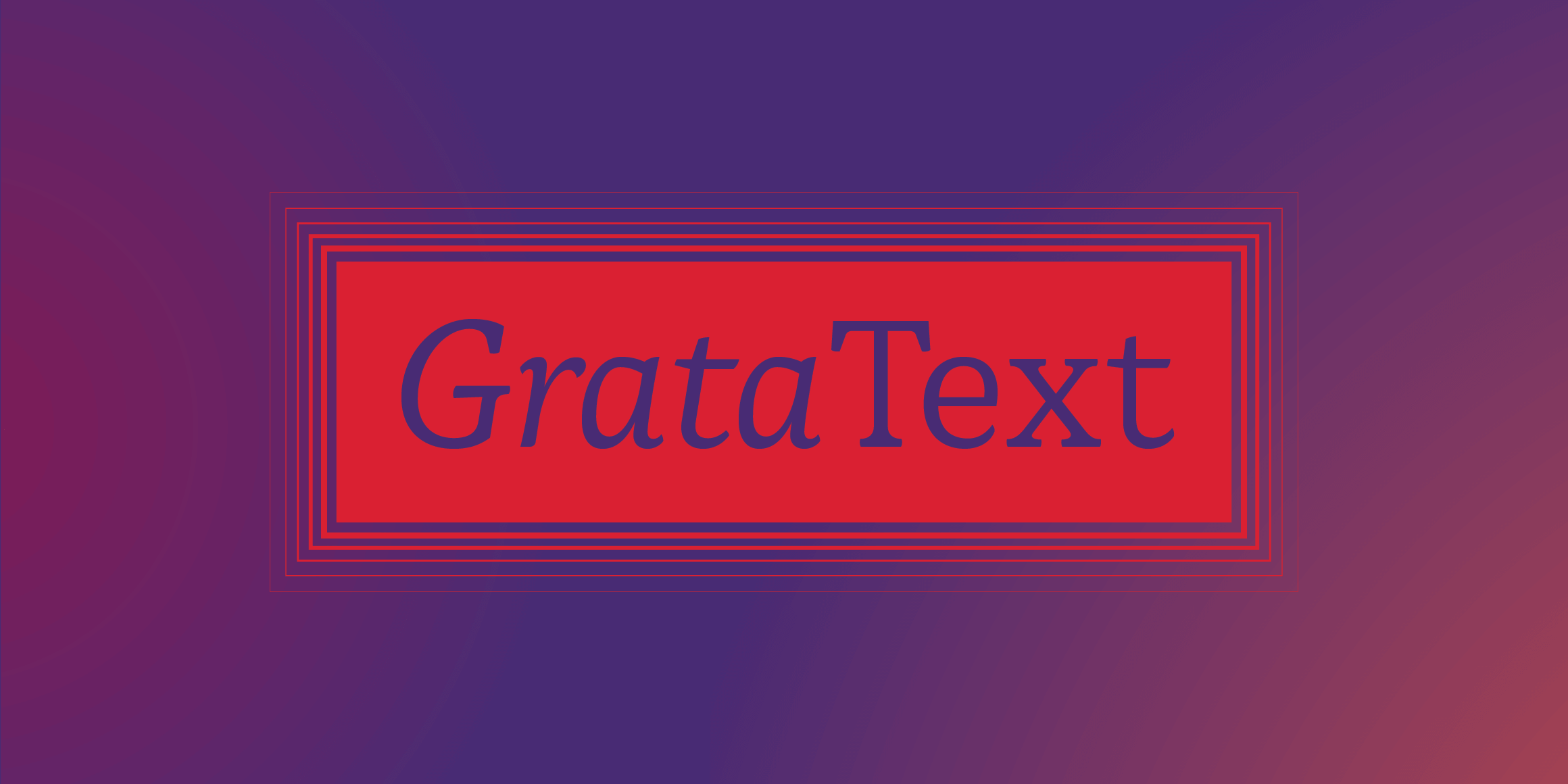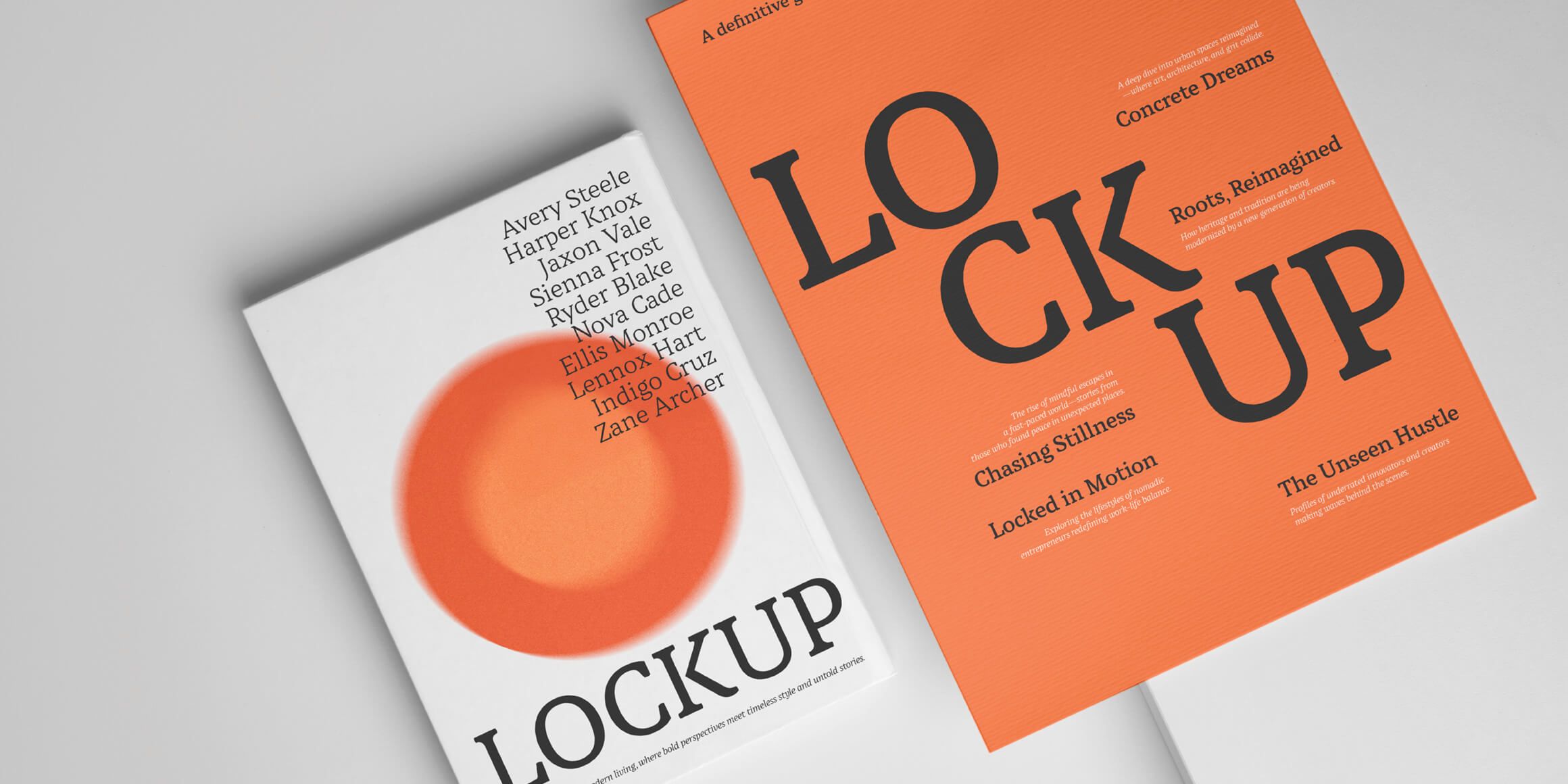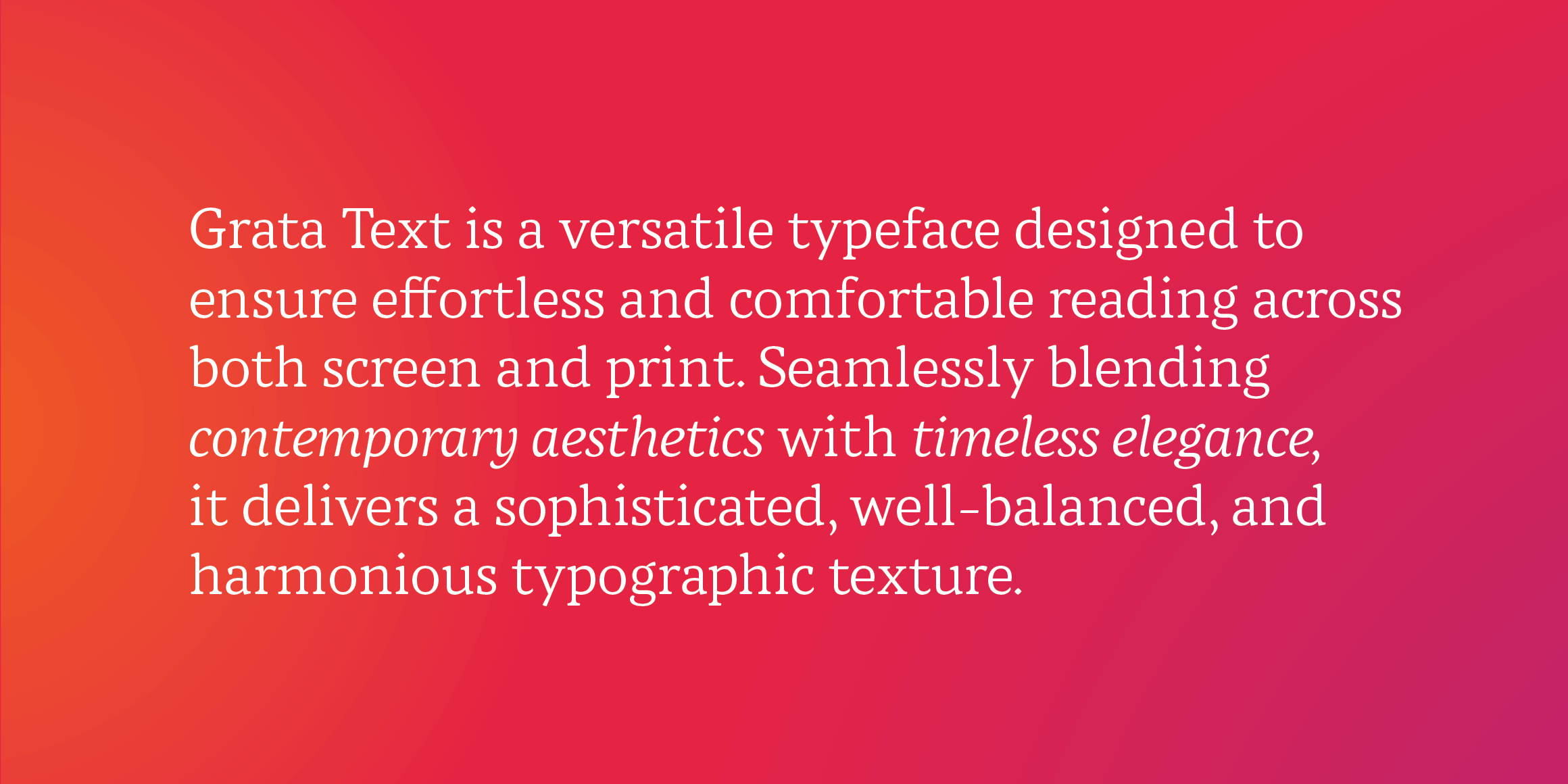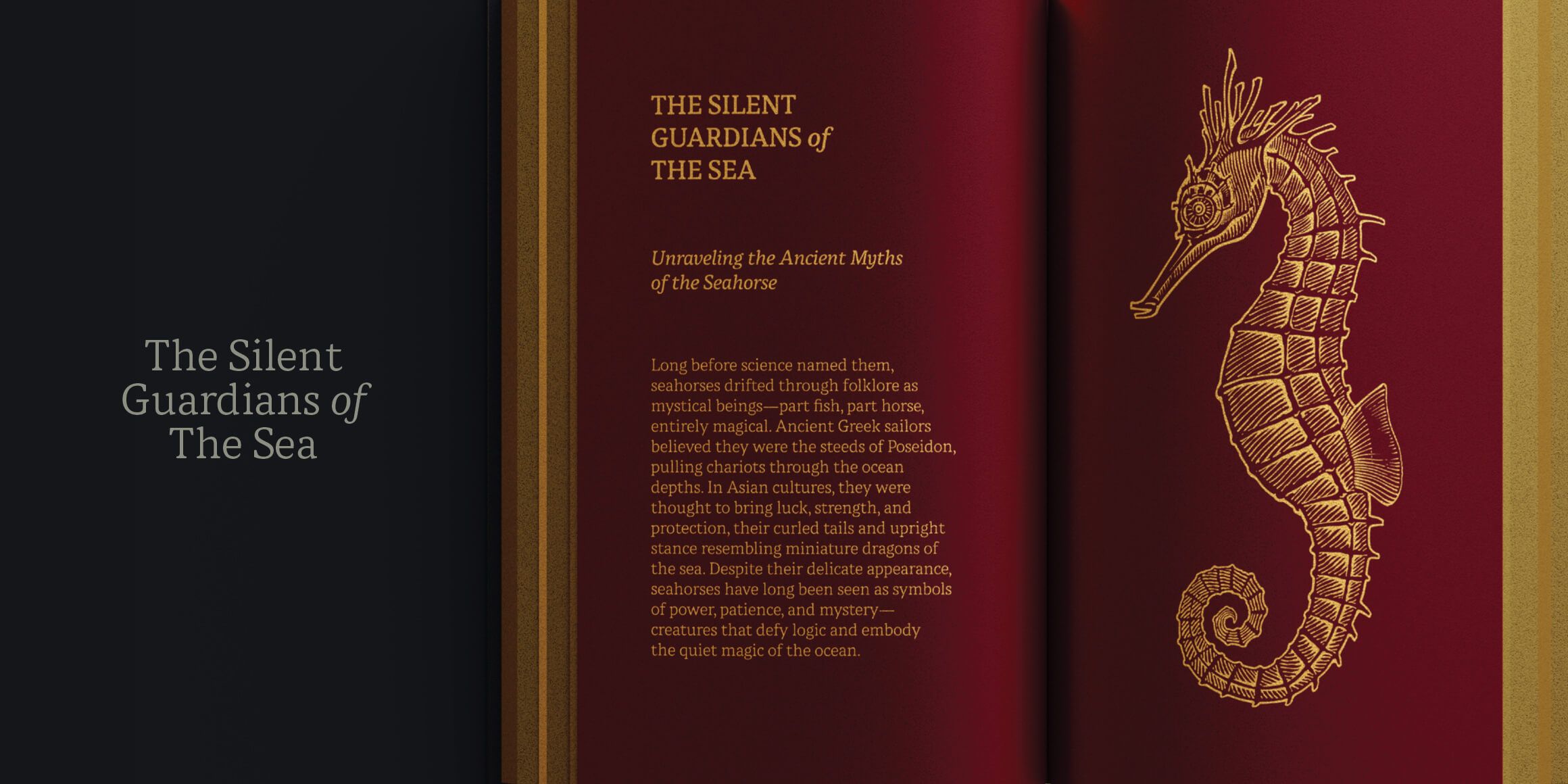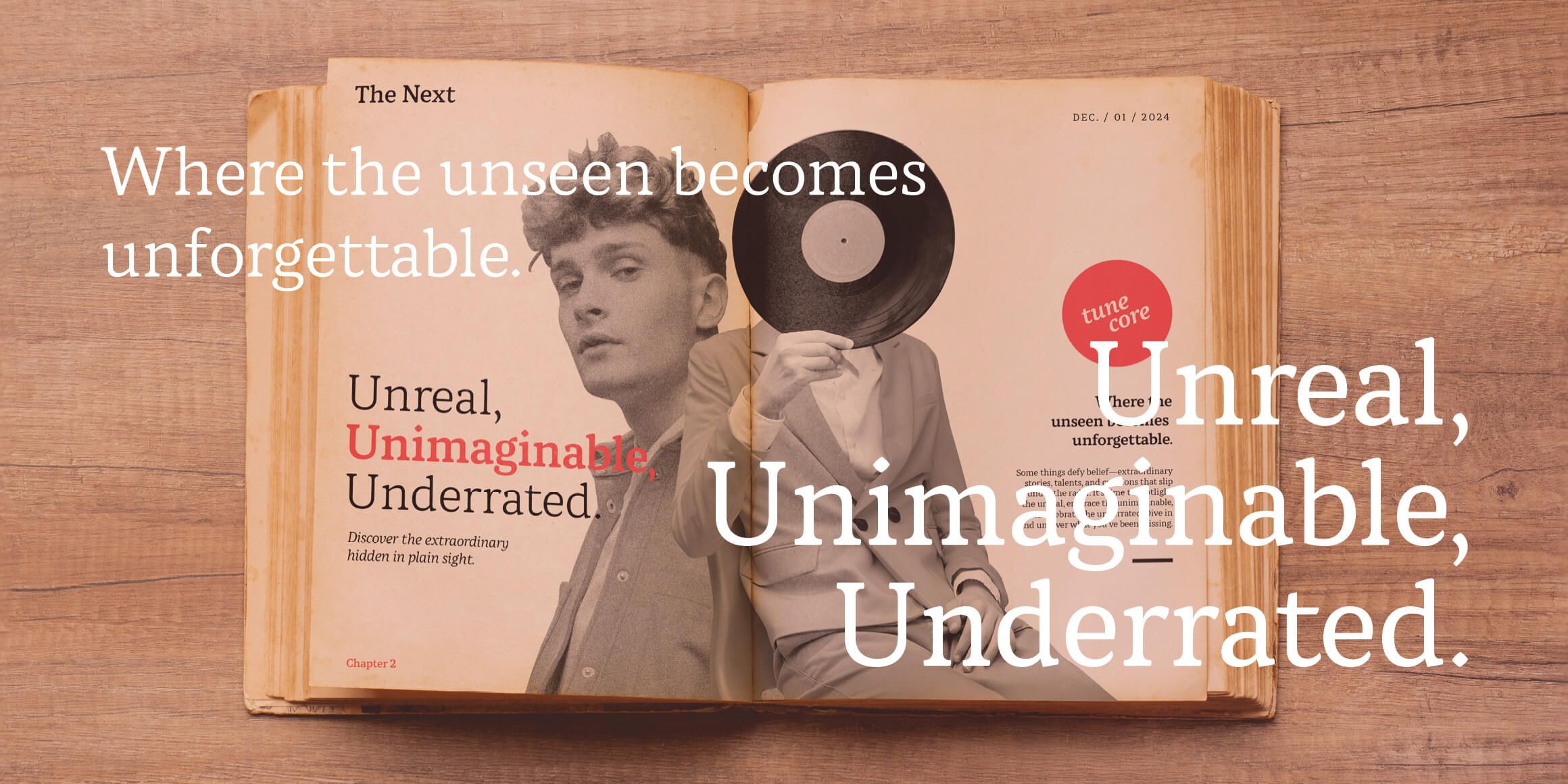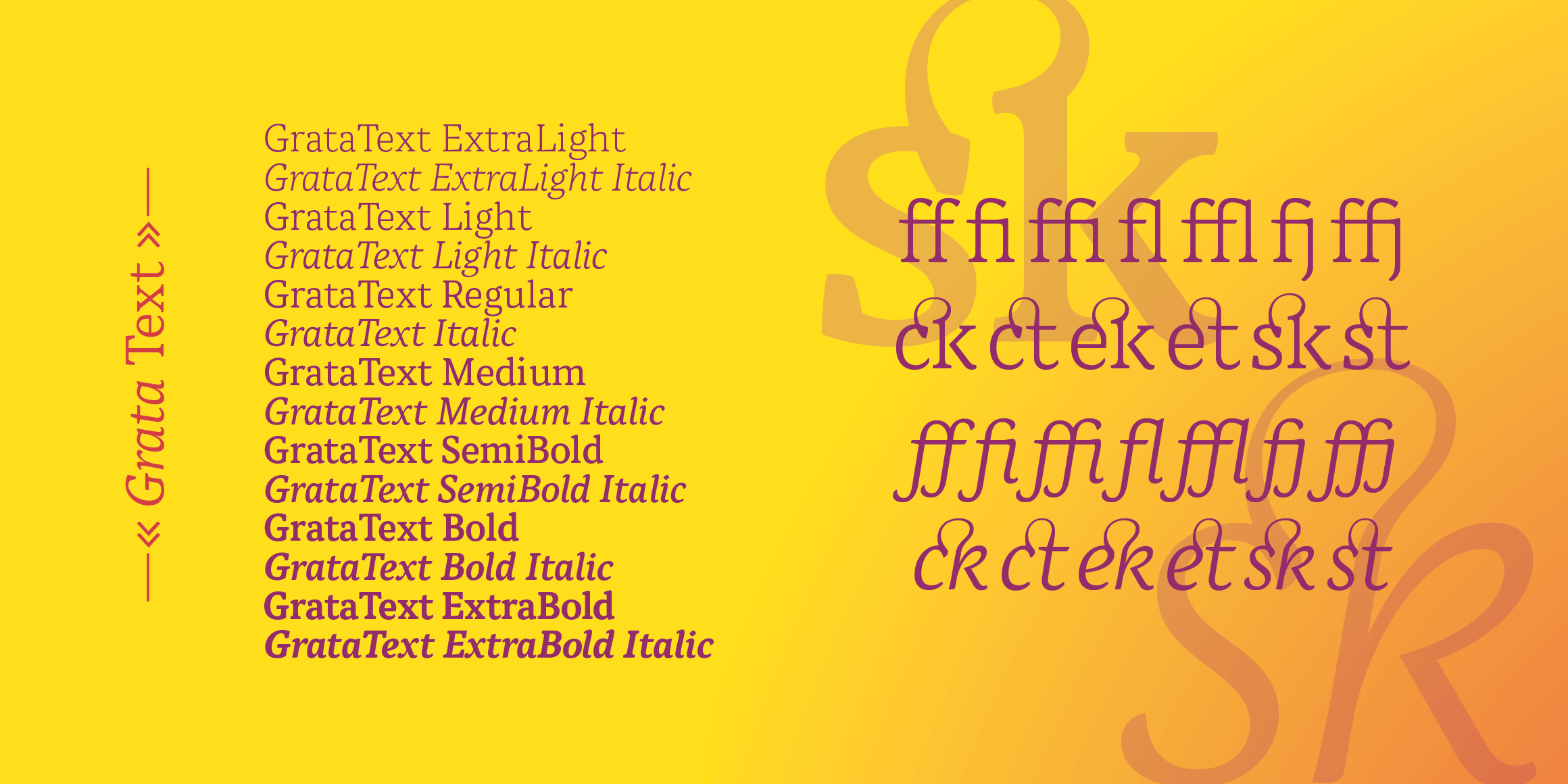
Grata Text
Grata Text is a versatile typeface designed to ensure effortless and comfortable reading across both screen and print. Seamlessly blending contemporary aesthetics with timeless elegance, it delivers a sophisticated, well-balanced, and harmonious typographic texture.